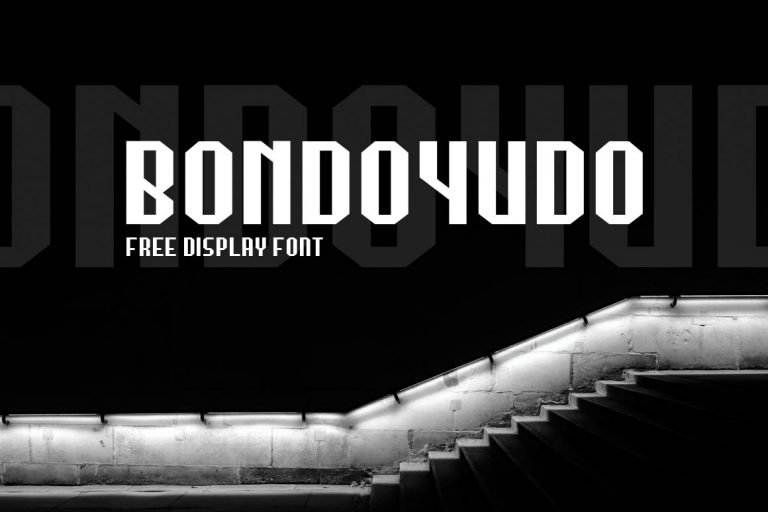
Bondoyudo Typeface
This is a free display typeface. Introducing Bondoyudo Font! Bondoyudo is a type of font that has a strong and modern impression, categorized in the DISPLAY font family, so this font is suitable for design purposes such as: Branding Logo Font Logo T-shirt Design Apparel Poster / Movie Monogram and others.Thanks to Fadiel Muhammad. Bondoyudo Font is free for personal & commercial use. Please download and enjoy, or can search more similar fonts on befonts.